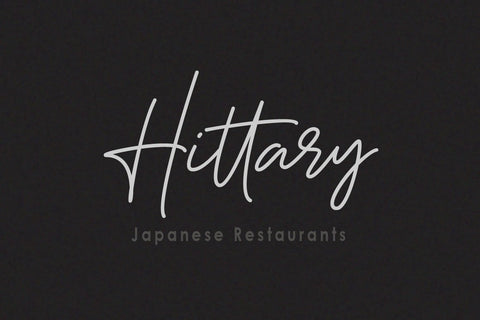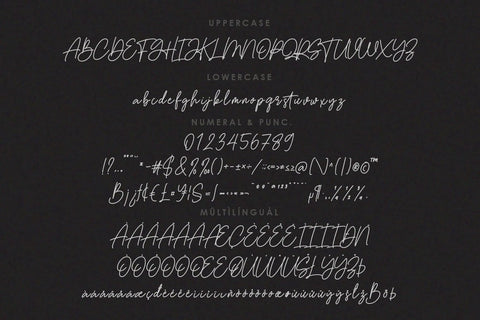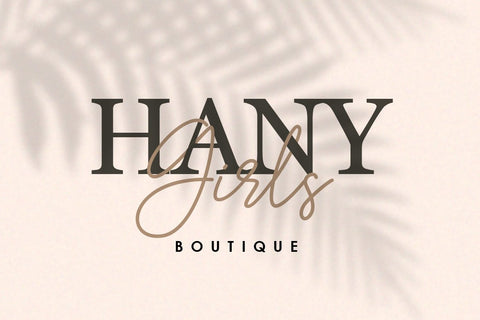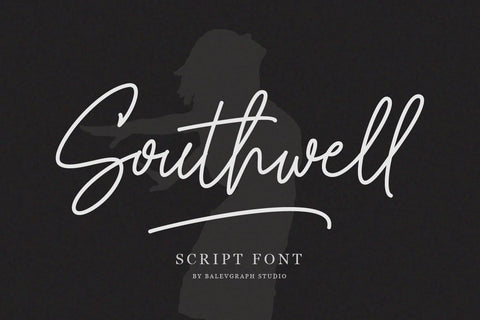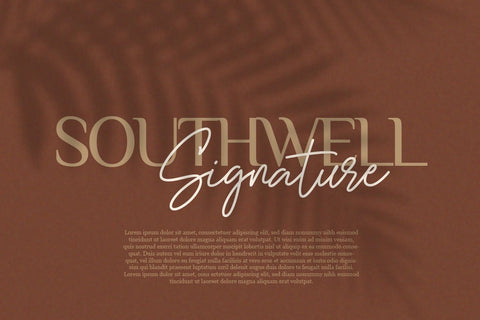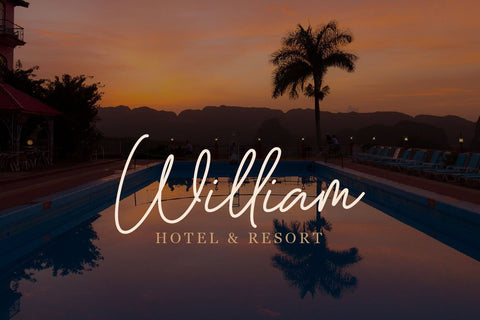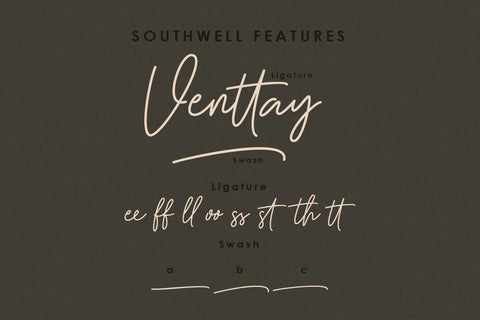
Southwell Script Font
Southwell is a lovely and delicate script font that exudes elegance and class. This font was particularly crafted for those who need a beautiful and refreshing look to their designs.
- Numbers & Punctuation
- Ligature, Alternate & Swashes